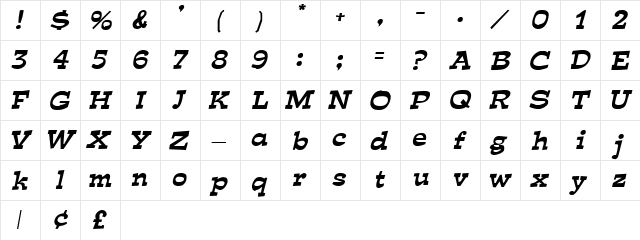
Nihility Oblique
Design Context for Nihility Typeface
Nihility takes a measured approach to typography — its balanced proportions and neutral character make it a reliable workhorse for both digital and print work. The slanted form adds forward momentum and visual energy.